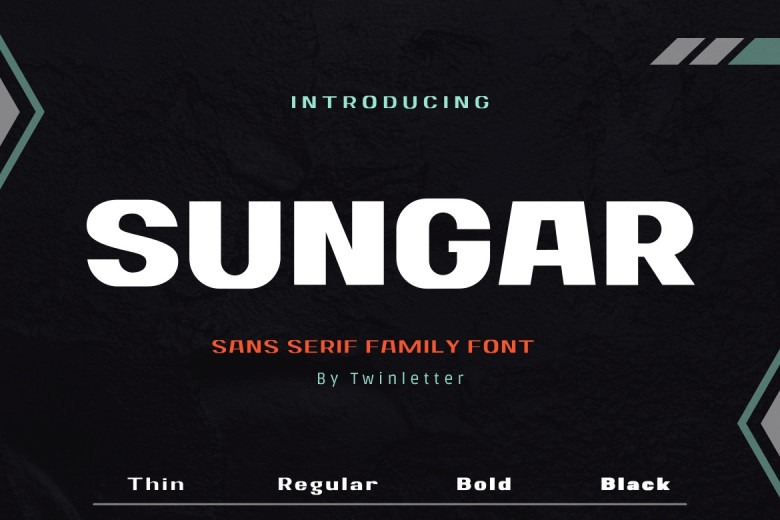
Sungar Font
Meet new simple and cute sans serif font Sungar. Your customers will notice and be impressed by the harmonious mixture of influence, handicraft and elegance in your new typeface. You have access to all the expert typography you need, without all the headaches and hard work.
Your innovative initiatives will be flawless and amazing with this typeface, which includes a font family of subtitles, titles and text sentences.
Sungar Sans Serif Font